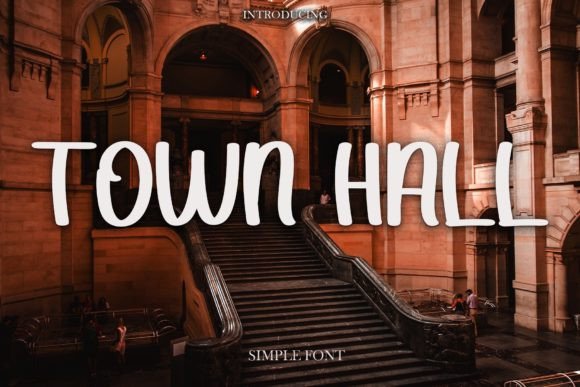
In a world clamoring for attention, visual impact reigns supreme. Fonts, the building blocks of visual communication, possess an unparalleled power to captivate, engage, and persuade. Town Hall Font, a remarkable creation from the Harlek studio, emerges as a symphony of style, a masterpiece of expression that transcends the boundaries of ordinary typography.
Meet Town Hall Font, a script font family that embodies the essence of elegance, playfulness, and versatility. Its meticulously crafted characters, reminiscent of a skilled calligrapher's hand, dance across the digital canvas with a grace and charm that is simply irresistible.
Immerse yourself in the boundless creative possibilities that Town Hall Font unlocks. Whether you seek to design eye-catching posters, captivating social media graphics, or simply add a touch of personal flair to your digital creations, this font family will elevate your designs to new heights of sophistication.
Step into the world of Town Hall Font and discover a treasure trove of meticulously crafted characters, each imbued with a personality that speaks volumes. From the sweeping strokes of its lowercase letters to the playful flourishes of its capitals, this font family is a visual feast that commands attention and leaves a lasting impression.
With Town Hall Font, you have the power to transform ordinary words into captivating works of art, to weave tales that dance off the page and into the hearts of your audience. Its clean, relaxed, and friendly demeanor makes it the perfect choice for a wide variety of designs, from whimsical invitations to heartfelt personal messages.
Take your designs to the next level with Town Hall Font, the ultimate font family for display boards. Its bold and confident strokes, coupled with its innate legibility, ensure that your message will cut through the noise and leave an indelible mark on the minds of your audience.
Unleash your creativity and embark on a typographic adventure with Town Hall Font. Its versatility knows no bounds, making it the perfect companion for a multitude of projects, from eye-catching logos to stunning website headers. Let your imagination run wild as you explore the endless possibilities that this remarkable font family has to offer.